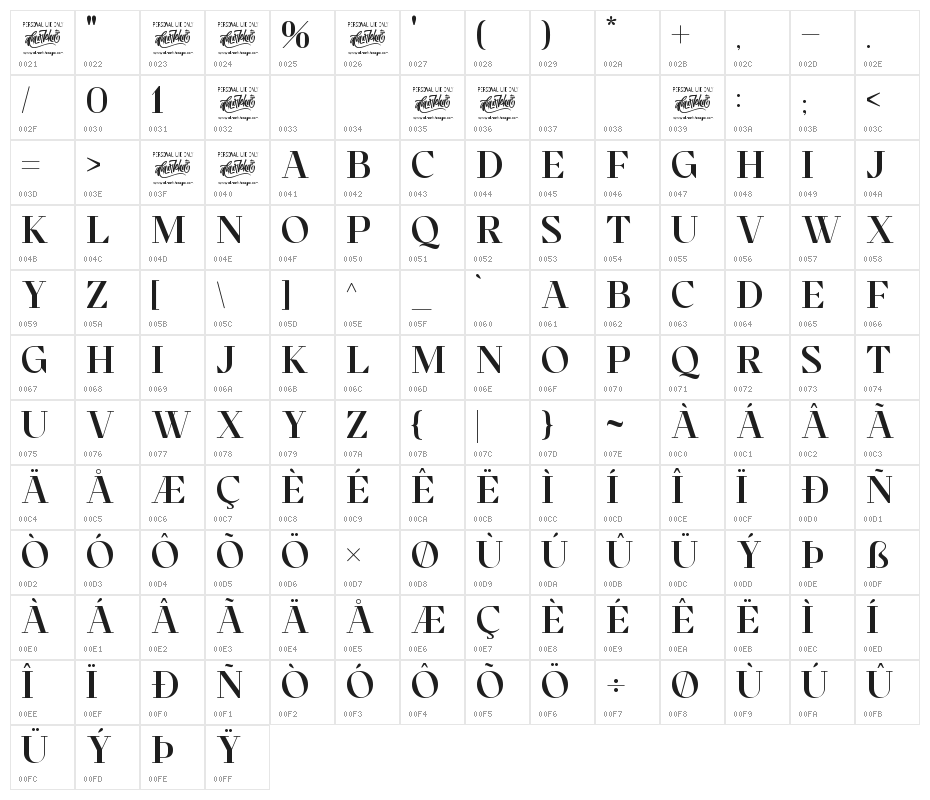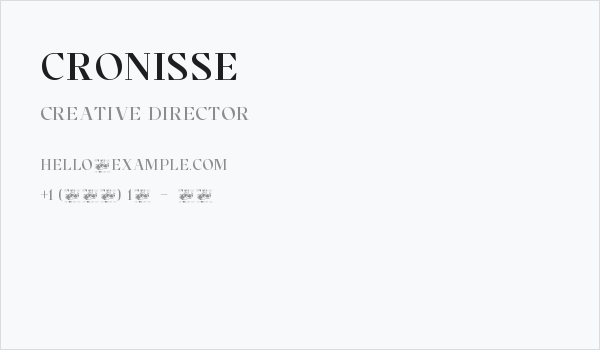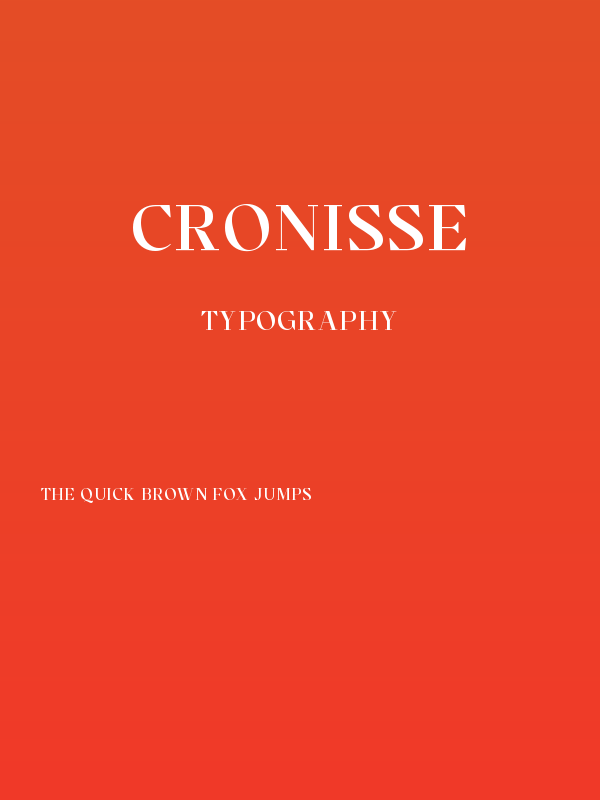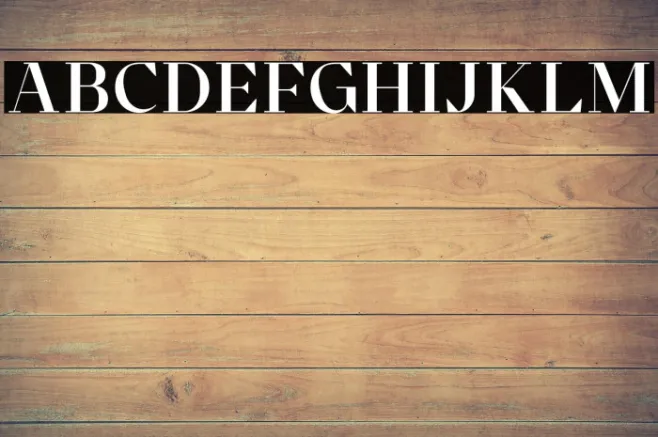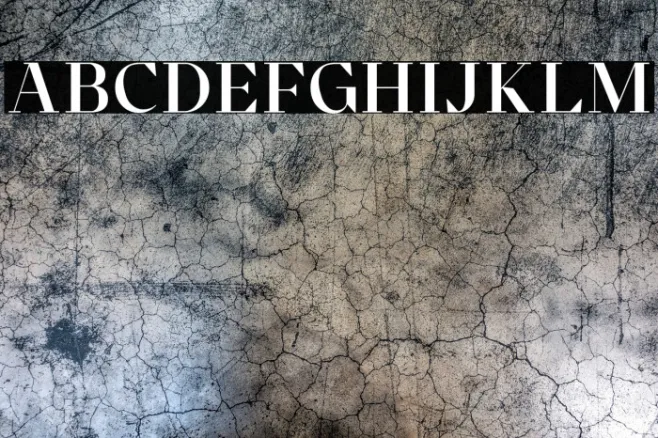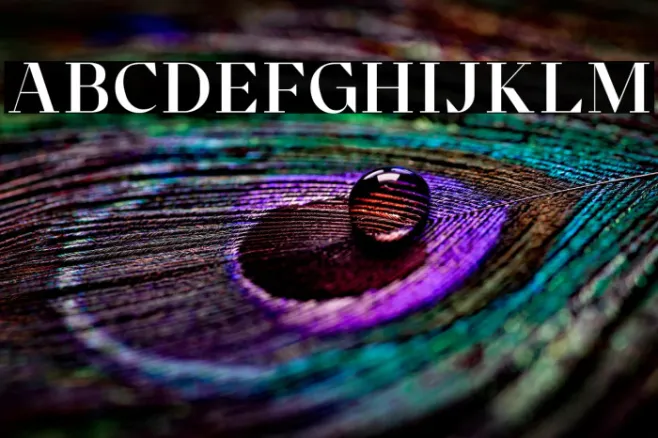
Cronisse Font
Cronisse Description
This font features a classic serif style with elegant, sharp serifs and a refined appearance. The uppercase letters are bold and commanding, while the lowercase letters maintain a consistent and harmonious flow. The numerals are clear and distinct, complementing the overall sophisticated look. Special characters are designed with a similar attention to detail, ensuring a cohesive aesthetic across all glyphs. The font's structure is well-balanced, making it suitable for a variety of formal and professional applications.
| Proposed Projects | Ideal for editorial design, book covers, formal invitations, and branding materials. |